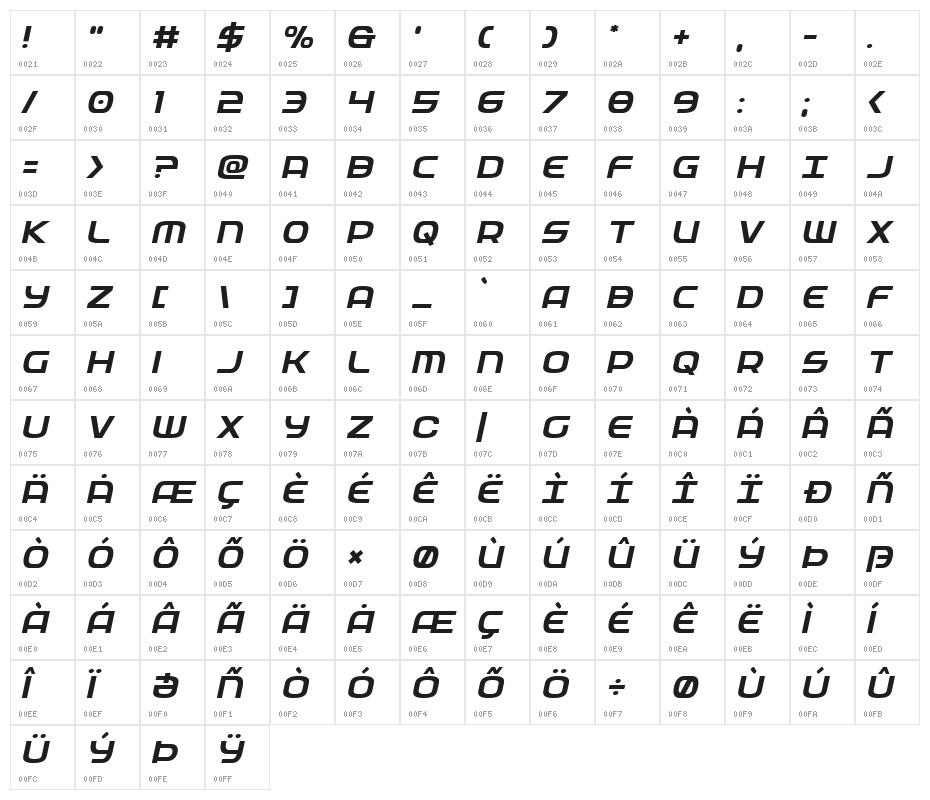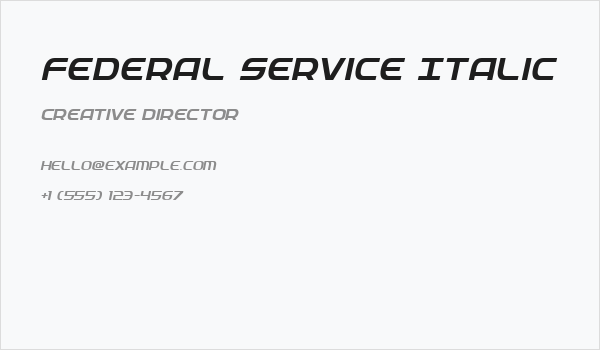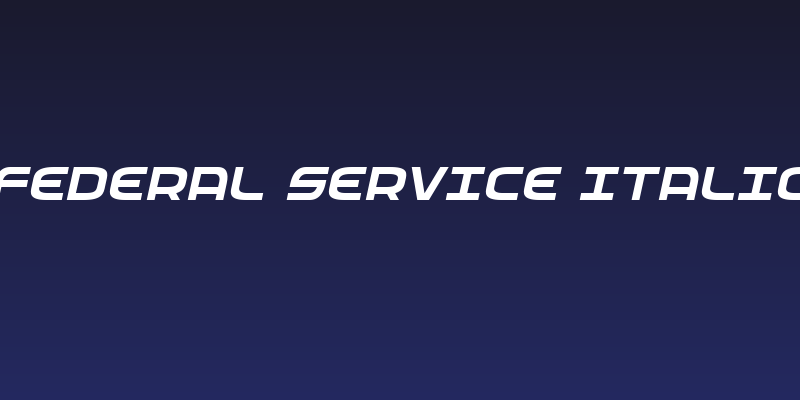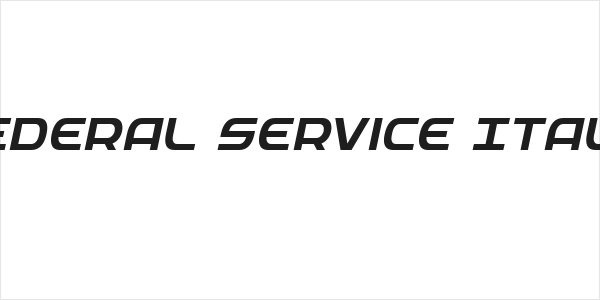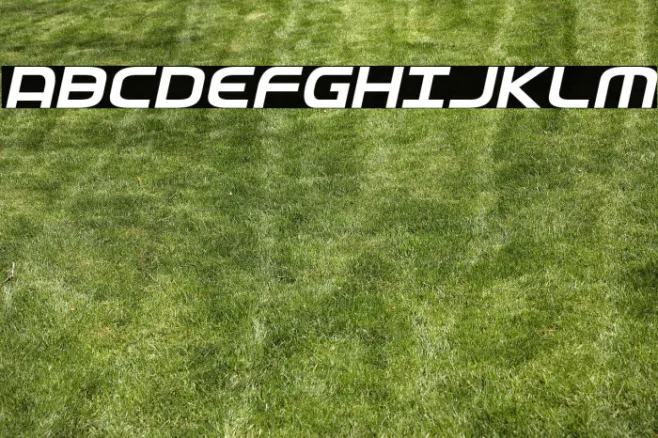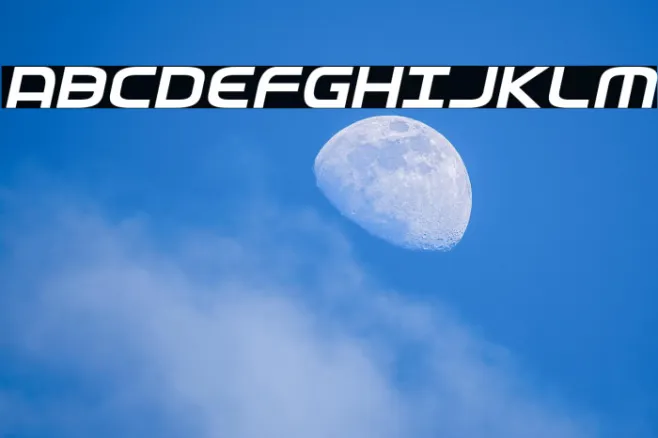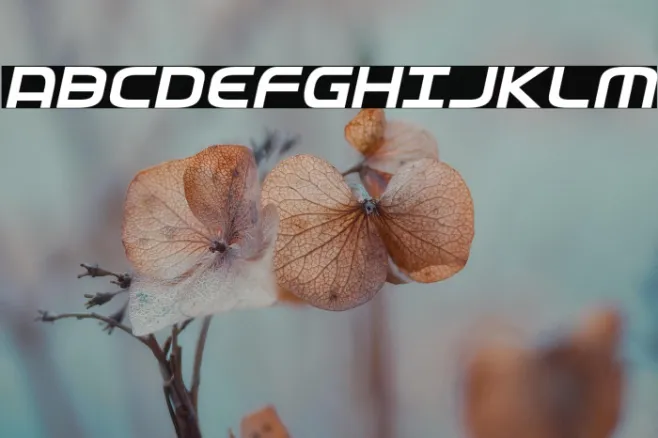
Federal Service Italic Font
Federal Service Italic Description
This font features a sleek, italicized design with a modern and futuristic aesthetic. The characters are slightly slanted, giving a sense of motion and dynamism. The strokes are consistent in thickness, providing a uniform appearance across all characters. The font maintains a clean and professional look, with rounded edges that soften the overall feel. It is highly legible, making it suitable for various applications where readability is crucial. The numbers and special characters are designed to match the style of the letters, ensuring a cohesive look throughout.
| Use Case | Logos, Headlines, Branding |
| Proposed Projects | Ideal for technology branding, sports team logos, and modern advertising campaigns. |